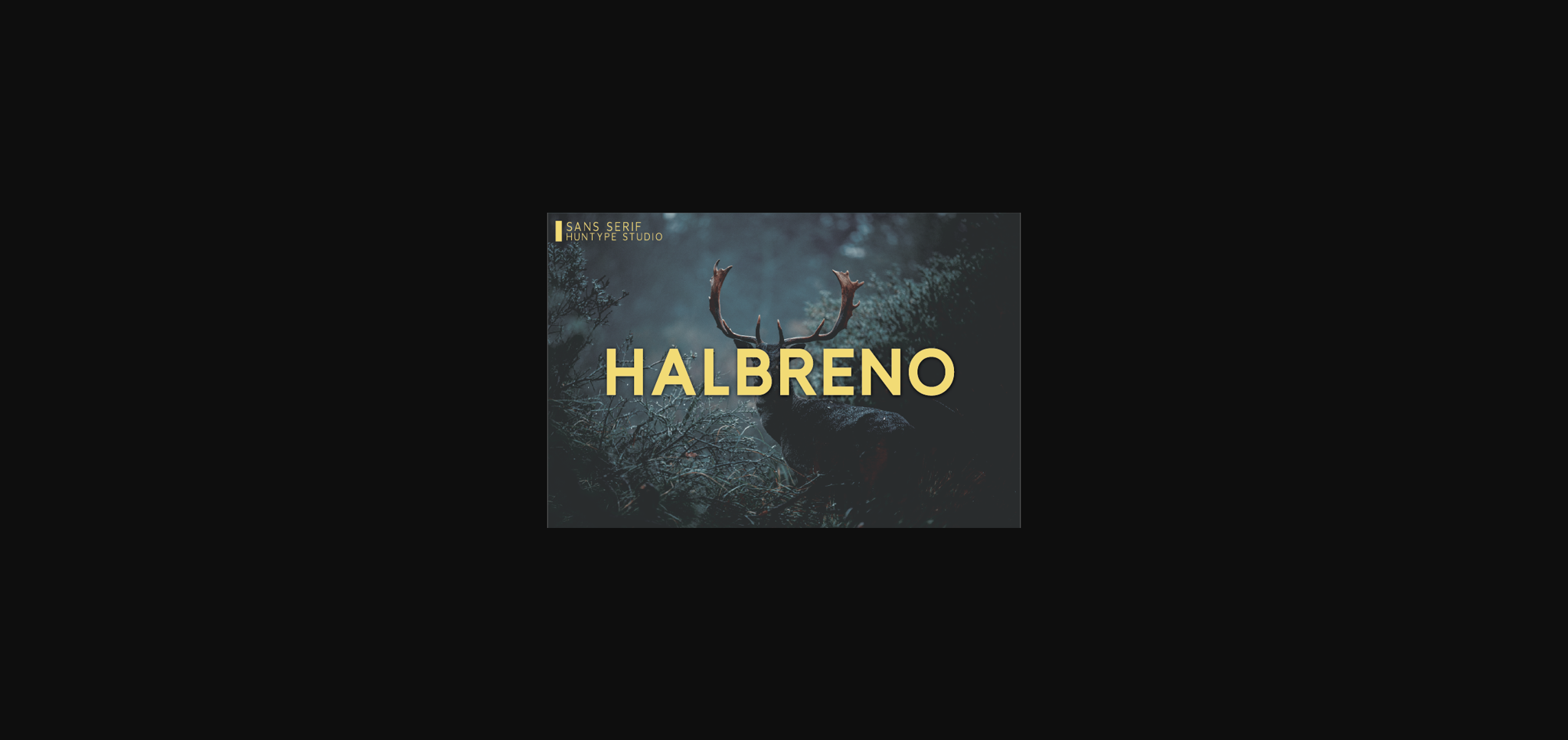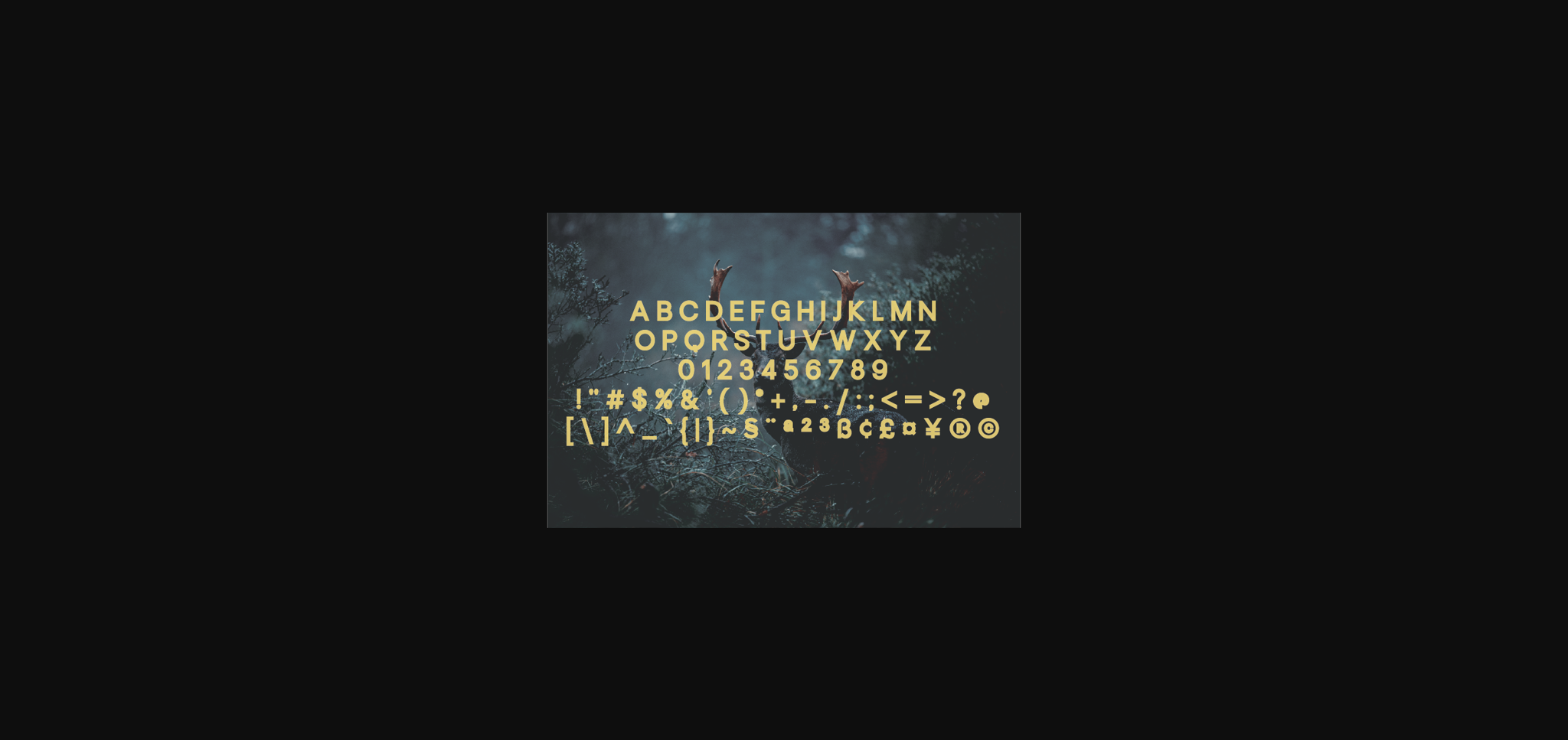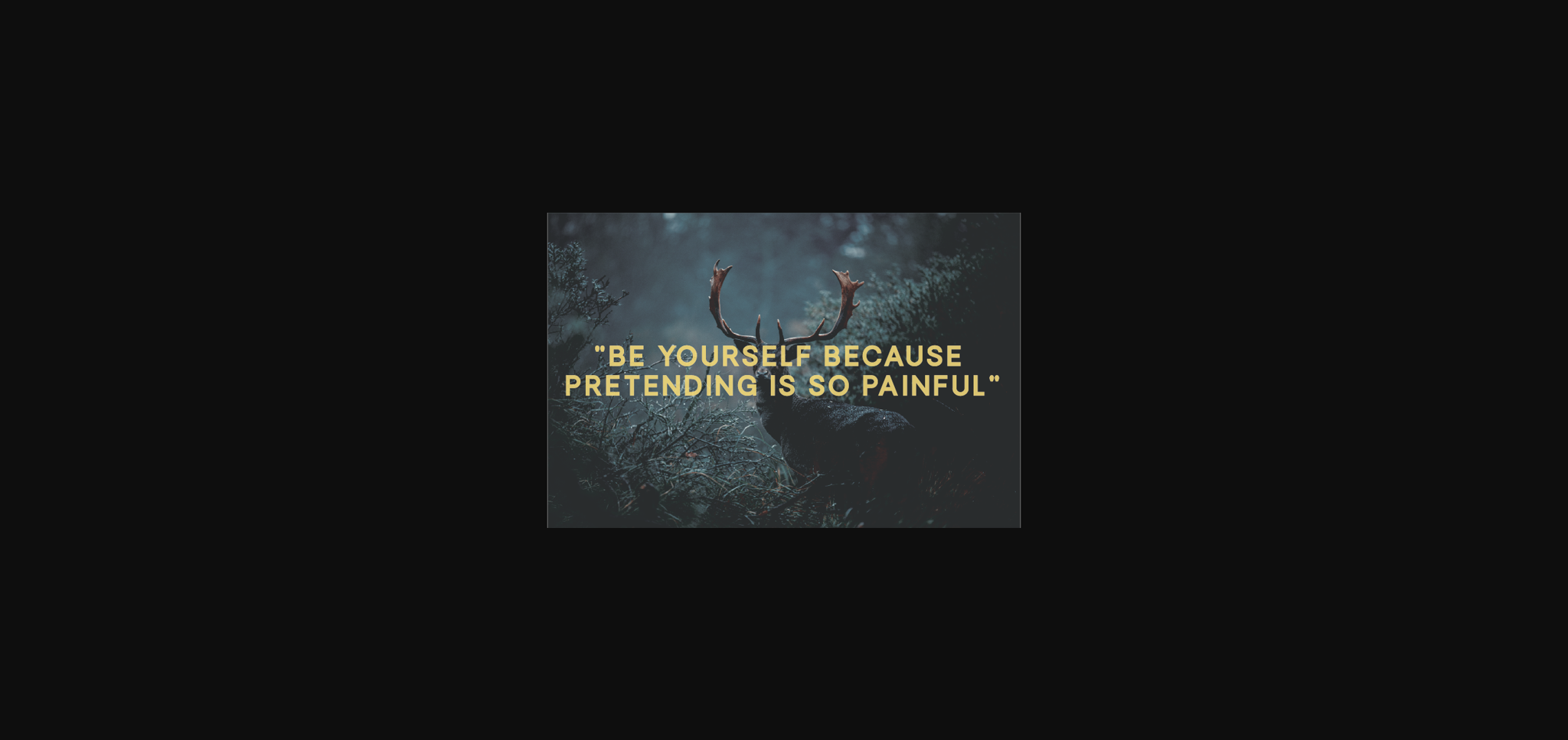
HomeSans Serif FontsHalbreno Font Sans Serif Fonts Halbreno Font FacebookXPinterestWhatsApp 1 of 5 ... Halbreno Font Poster 2... Halbreno Font Poster 3... Halbreno Font Poster 4... Halbreno Font Poster 5... About Halbreno Font Halbreno is a simple and thick lettered sans serif font. It works beautifully for logos, branding, and web headings. Add it confidently to your projects, and you won’t be disappointed. DOWNLOAD NOW People also explored Romina Hope Font SkinerScort Font Christmas History Font Beloved Font Netron Font Child Font Flash Light Font YWFT Black Slabbath 276 0 TagsHalbreno Font Previous articleHalbreno FontNext articleClovern Font LEAVE A REPLY Cancel reply Comment: Please enter your comment! Name:* Please enter your name here Email:* You have entered an incorrect email address! Please enter your email address here Website: Save my name, email, and website in this browser for the next time I comment. Personal Use Free Milda Personal Use Free Read more about this font Farmhouse Christmas Personal Use Free Read more about this font Hello December Personal Use Free Read more about this font Carrolina Personal Use Free Read more about this font BLOG Free Fonts Risk: Why Free Fonts Can Be Dangerous for Designers Free Fonts Risk: Why Free Fonts Can Be Dangerous for Designers Using free fonts is a common practice in web and graphic design. However, the... How to Cut Any Font on Cricut: Convert a Font to SVG (Free) Where to Buy American Fonts Online in 2024 Free vs Paid Fonts: Why Investing in Premium Fonts Is Worth It